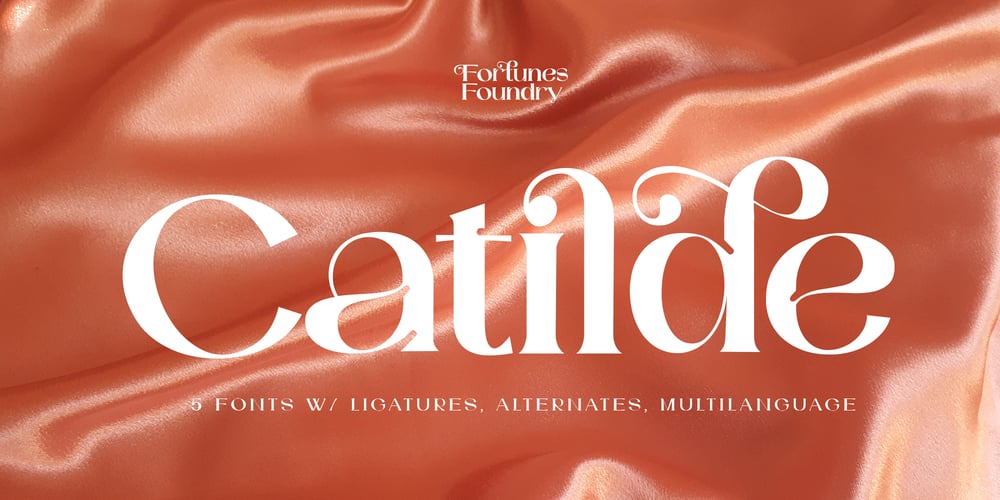
Fd Catilde Font Family was designed by Ramandhani Nugraha and published by Fortunes Co. Fd Catilde contains 5 styles and family package options. Introduce Catilde Modern Elegant come with 5 differents style Variation this is perfect for branding, magazine, logos, invitation, Title, promotion and more.